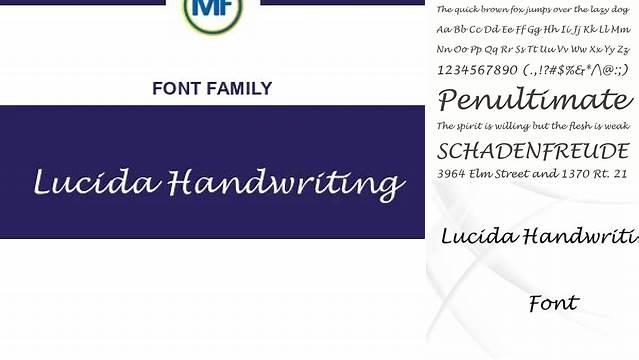
Hey guys! If you're on the hunt for a beautiful, classic handwriting font, then you've probably stumbled upon Lucida Handwriting EF. It's a fantastic choice for adding a personal touch to your projects, whether you're creating invitations, crafting social media posts, or just sprucing up your documents. And the best part? You can often find a lucida handwriting ef font free download! In this comprehensive guide, we'll dive deep into everything you need to know about this lovely font, where to find it, and how to use it. Buckle up, because we're about to embark on a font-tastic adventure!
Lucida Handwriting Font: What Makes It Special?
So, what's the big deal about Lucida Handwriting Font? Well, for starters, it's designed to mimic the natural flow and appearance of real handwriting. It's got that elegant, almost casual feel that makes it perfect for a variety of uses. Think of it as the digital equivalent of a handwritten letter – it adds a personal, human touch that can be hard to achieve with more generic fonts. The Lucida Handwriting style is all about readability. It ensures that the text is easy on the eyes and avoids the overly stylized look that can sometimes make a font difficult to read. This makes it a great choice for long passages of text, as well as shorter headings and titles. Moreover, it strikes a balance between formality and approachability, making it suitable for both professional and personal projects. The unique curves and strokes within the font characters contribute to a cohesive look, making any design more aesthetically pleasing. Using Lucida Handwriting EF Font can help you create designs that are visually attractive and also very user-friendly.
Another reason for the font's popularity is its versatility. You can use it in various applications and design projects, from creating invitations and greeting cards to designing websites and social media graphics. The font is suitable for both print and digital media, and it consistently maintains its elegance and readability across different platforms. The availability of lucida handwriting ef font free download versions makes it accessible to a wider audience, regardless of their budget. And, because the font is a classic, it's never really out of style. The timeless qualities make it an excellent choice for a wide variety of design purposes. It's a font that can adapt to changing design trends while maintaining its essential elegance and functionality. Therefore, you can use Lucida Handwriting EF font free download in your projects with great confidence that it will continue to look fresh and relevant in the years to come.
The Subtle Art of Font Pairing
One of the keys to success with Lucida Handwriting is knowing how to pair it with other fonts. Since it has a distinctive character, it’s best used with fonts that complement its style. For example, consider pairing it with a clean, sans-serif font for headings and titles, and using Lucida Handwriting for the body text. This contrast can create a visually appealing hierarchy that guides the reader’s eye. Another option is to pair Lucida Handwriting with a classic serif font for a touch of elegance. This combination can be particularly effective in formal designs, such as wedding invitations or business cards. If you're seeking a more modern feel, you might consider pairing it with a geometric sans-serif font. The juxtaposition of the flowing handwriting with clean, precise lines creates an interesting visual dynamic. Remember, the goal is to create a design that is both readable and visually appealing. The right font pairings can help you achieve this balance. When choosing a font to pair with Lucida Handwriting EF, consider the overall mood and tone of your project. Are you aiming for a casual, friendly vibe, or something more formal and sophisticated? The answer will help guide your font choices. It is a good idea to experiment with different combinations to see what works best for your specific project. Don’t be afraid to try different styles and see what catches your eye.